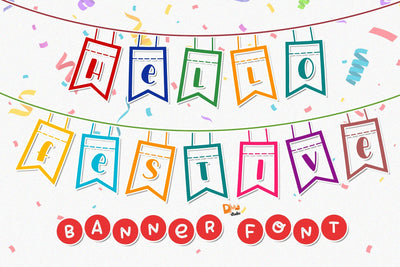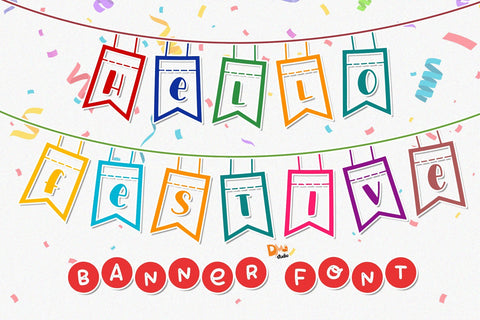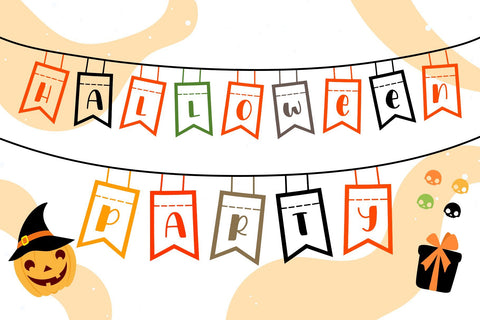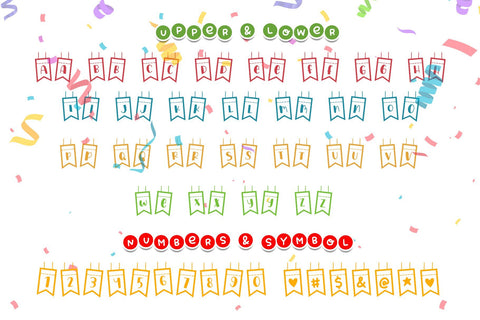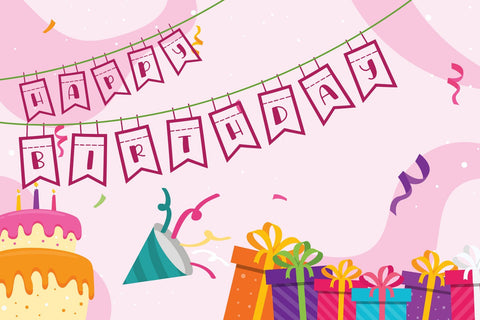
Hello Festive - Banner Font
Introducing Hello Festive, a decorative font for your special moment!
Comes in two styles, you can access between uppercase and lowercase.
- Comes in two styles ( uppercase for left & lowercase for right )
- Numbers
- Symbols #$&@* and love symbol !"%()-+_=<>,.:;?/